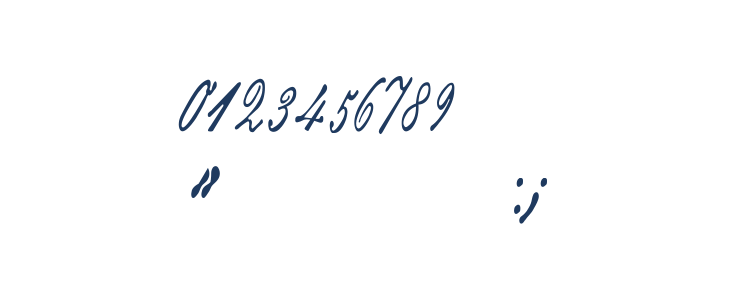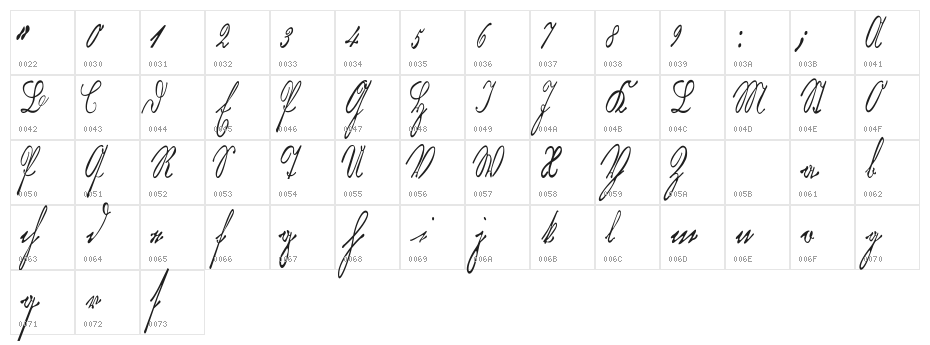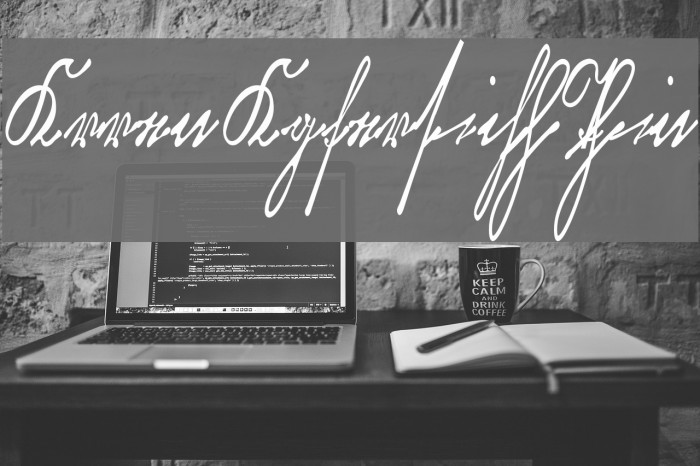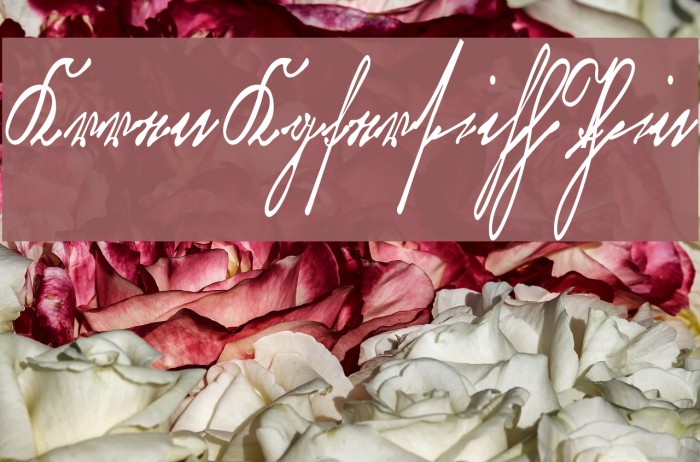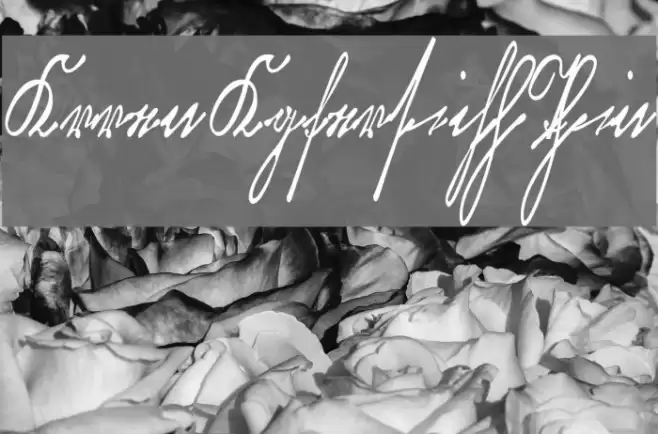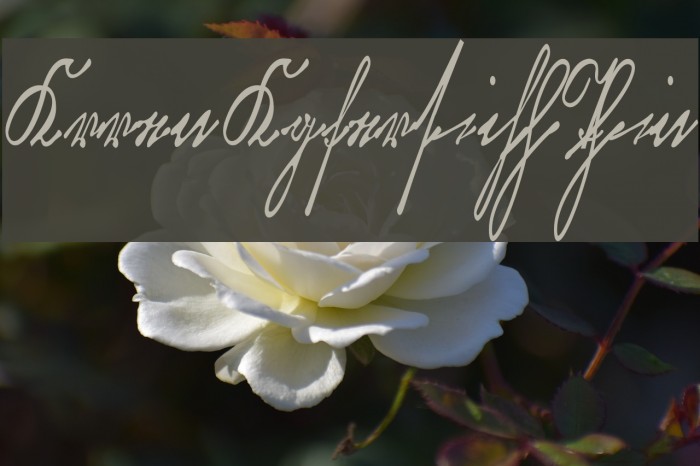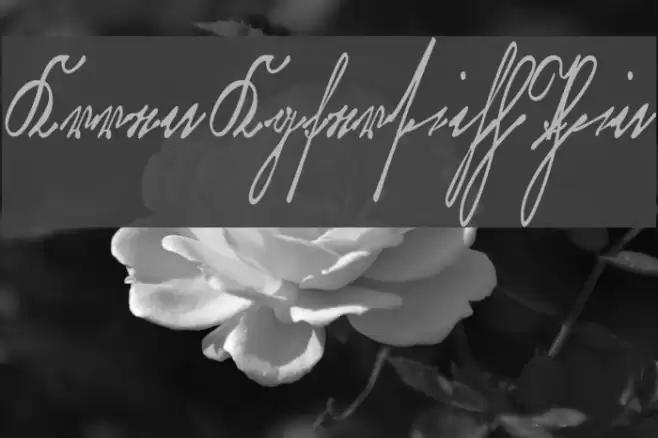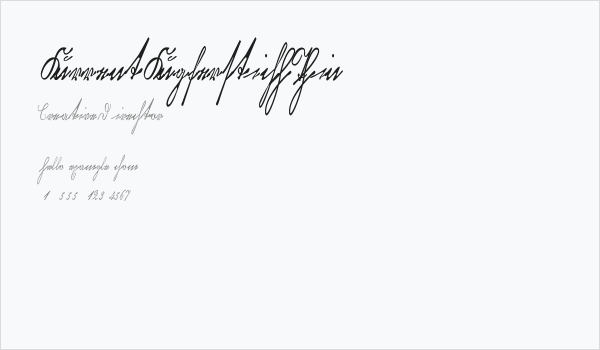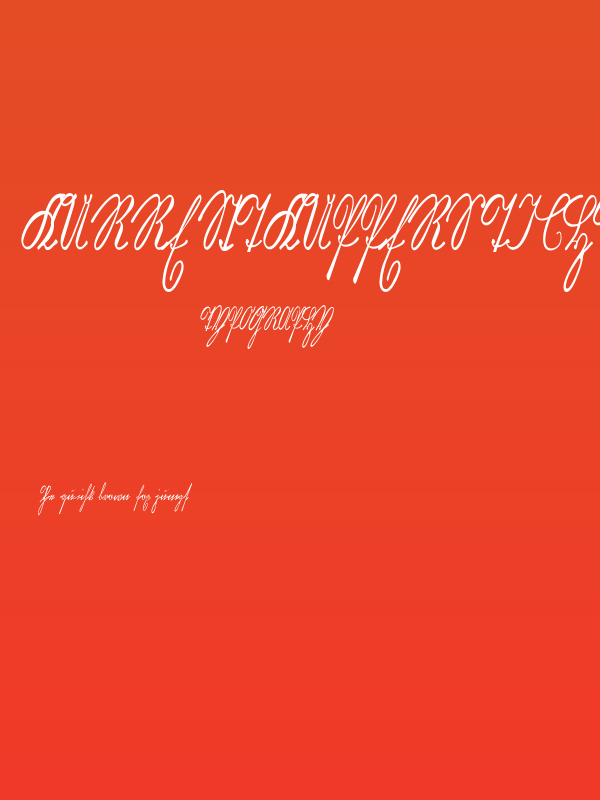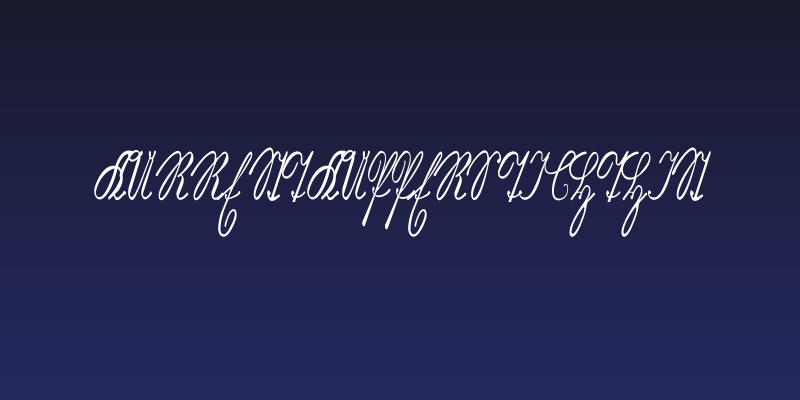
KurrentKupferstichThin Font
KurrentKupferstichThin Description
This font is a beautifully intricate script style that mimics traditional handwriting with a flowing, elegant form. Each letter is connected, creating a seamless and continuous line that enhances its cursive nature. The strokes are thin and delicate, giving it a refined and sophisticated appearance. The uppercase letters are ornate, with loops and flourishes that add a decorative touch. The lowercase letters maintain a consistent flow, complementing the uppercase with their graceful curves. Numbers and special characters are designed to match the overall style, ensuring a cohesive look across all text. This font exudes a classic and timeless charm, perfect for projects that require a touch of elegance and tradition.
Overall StyleClassic